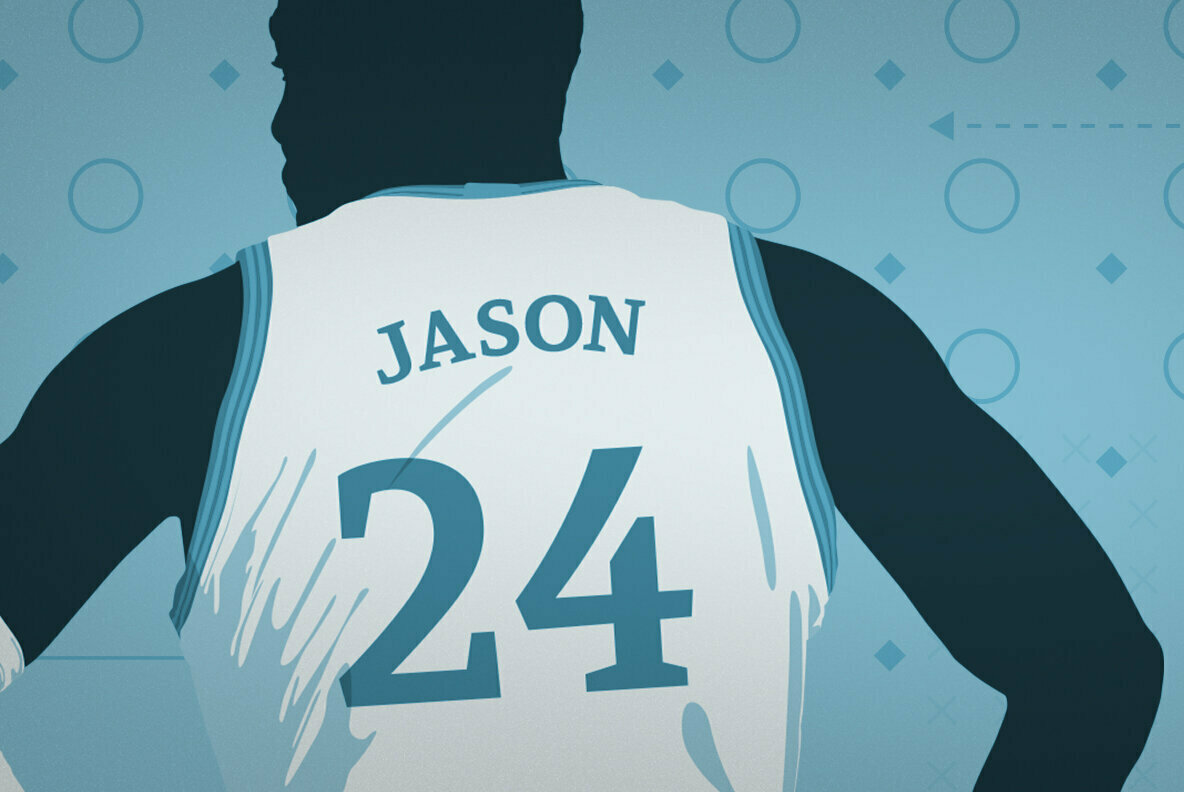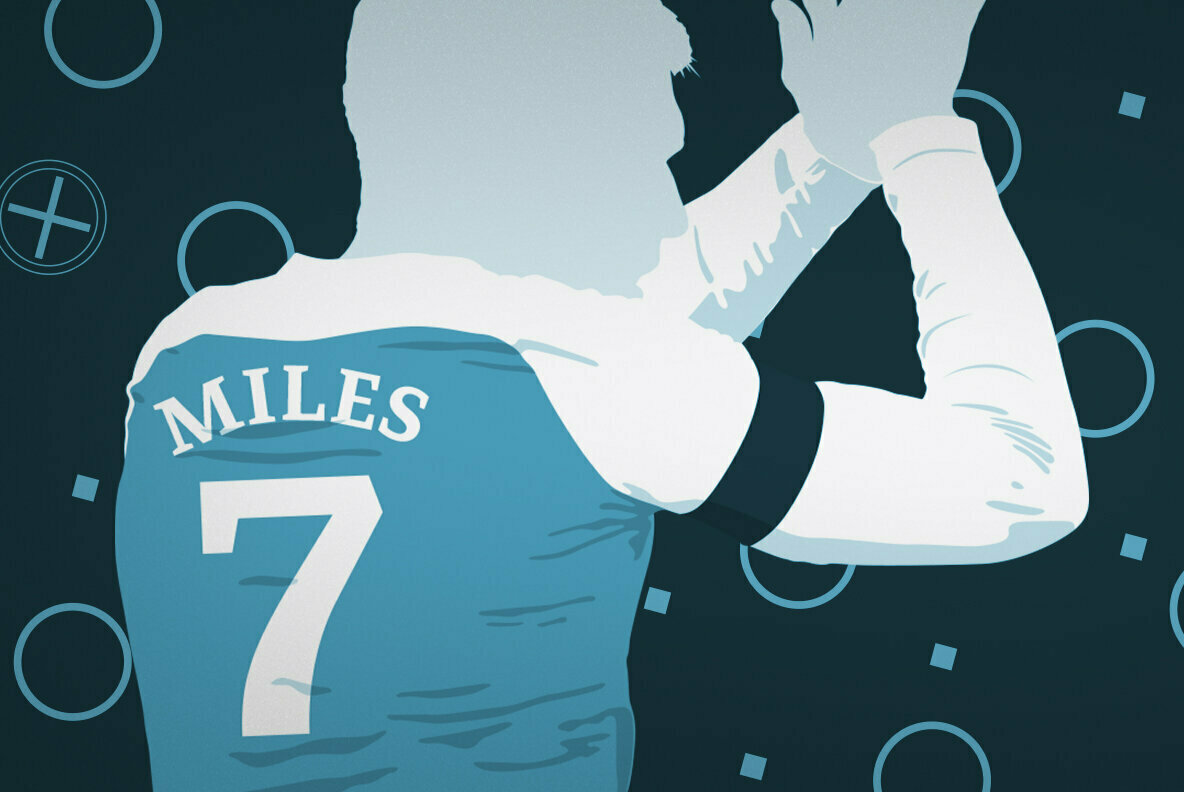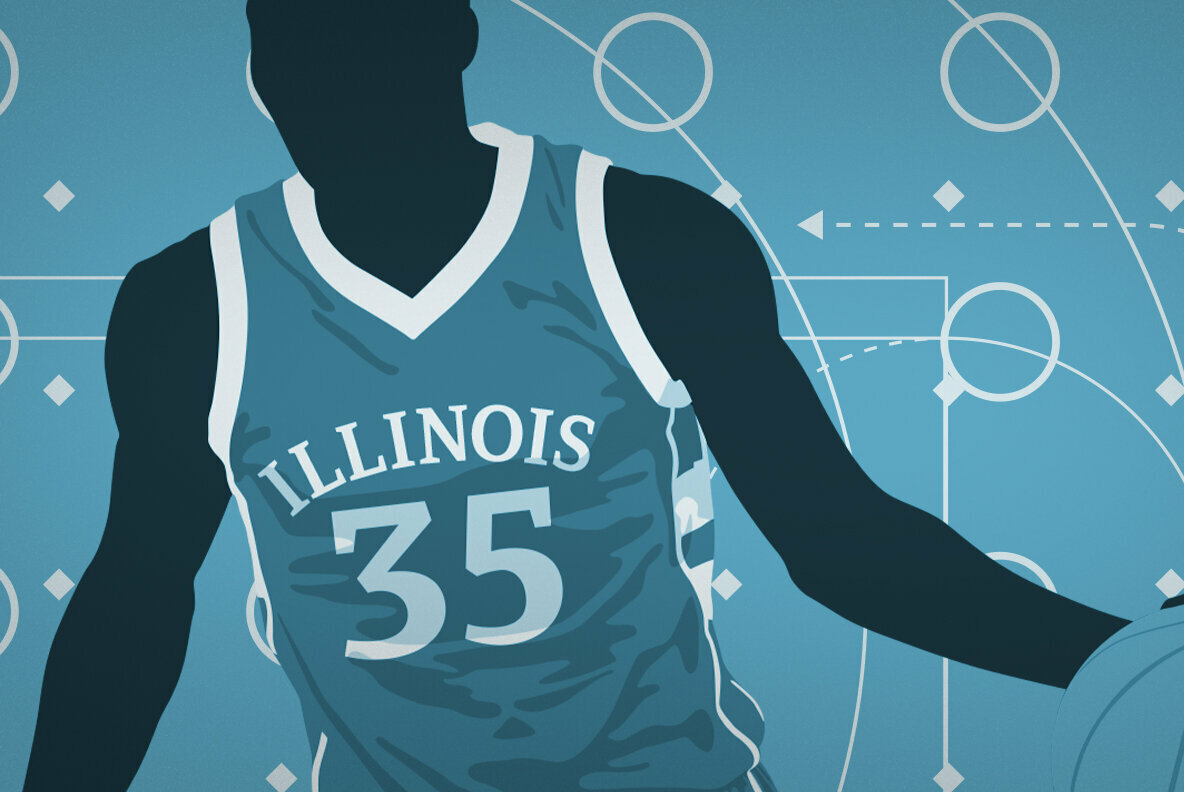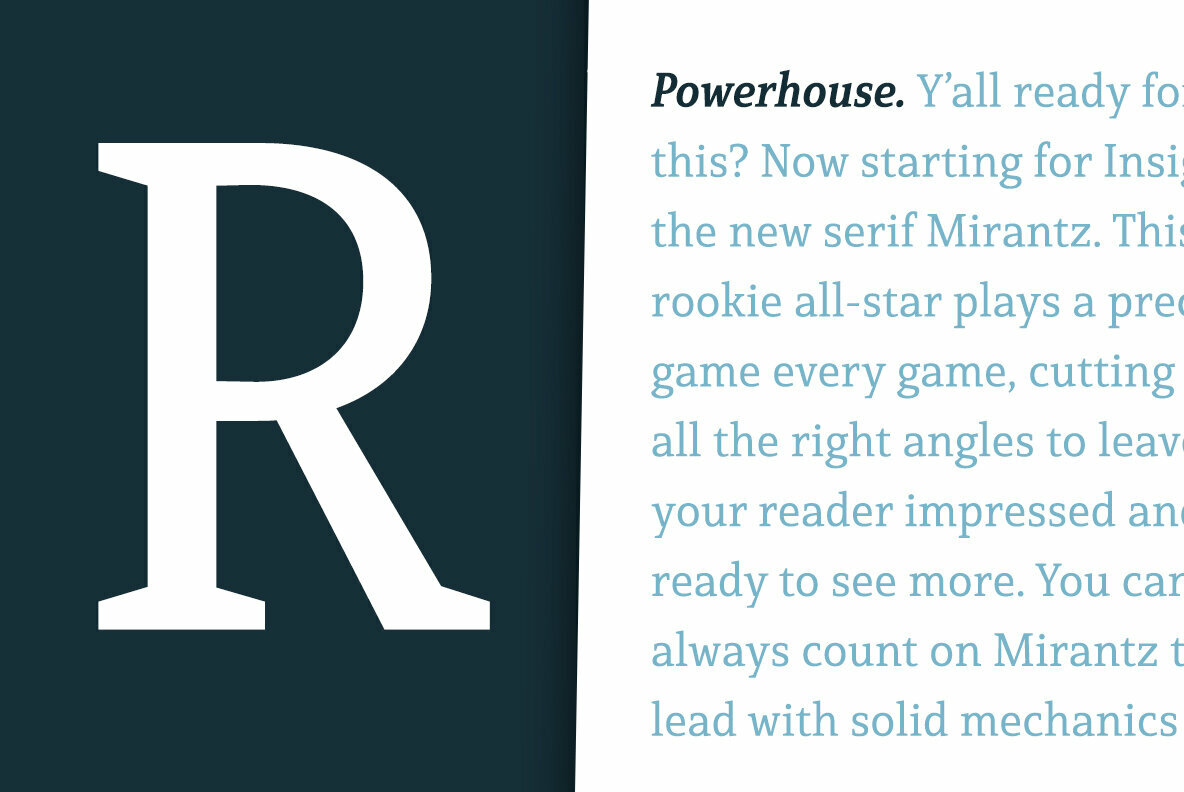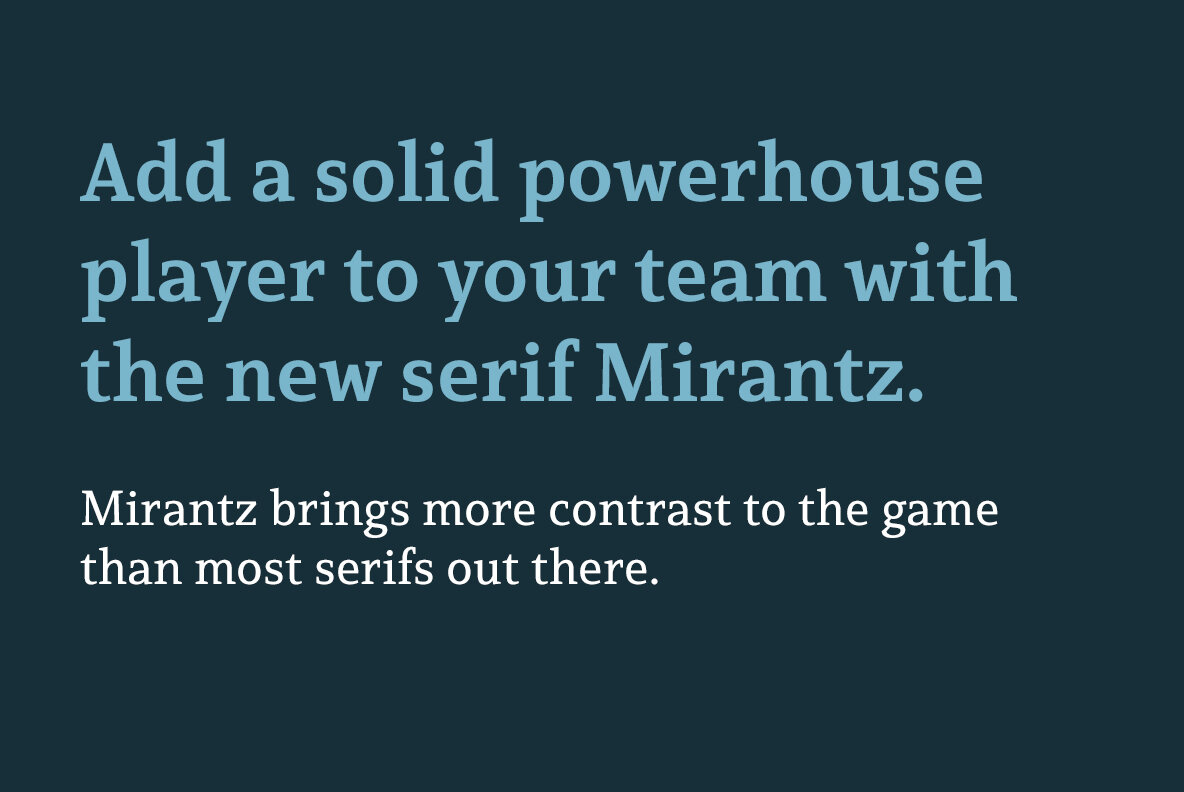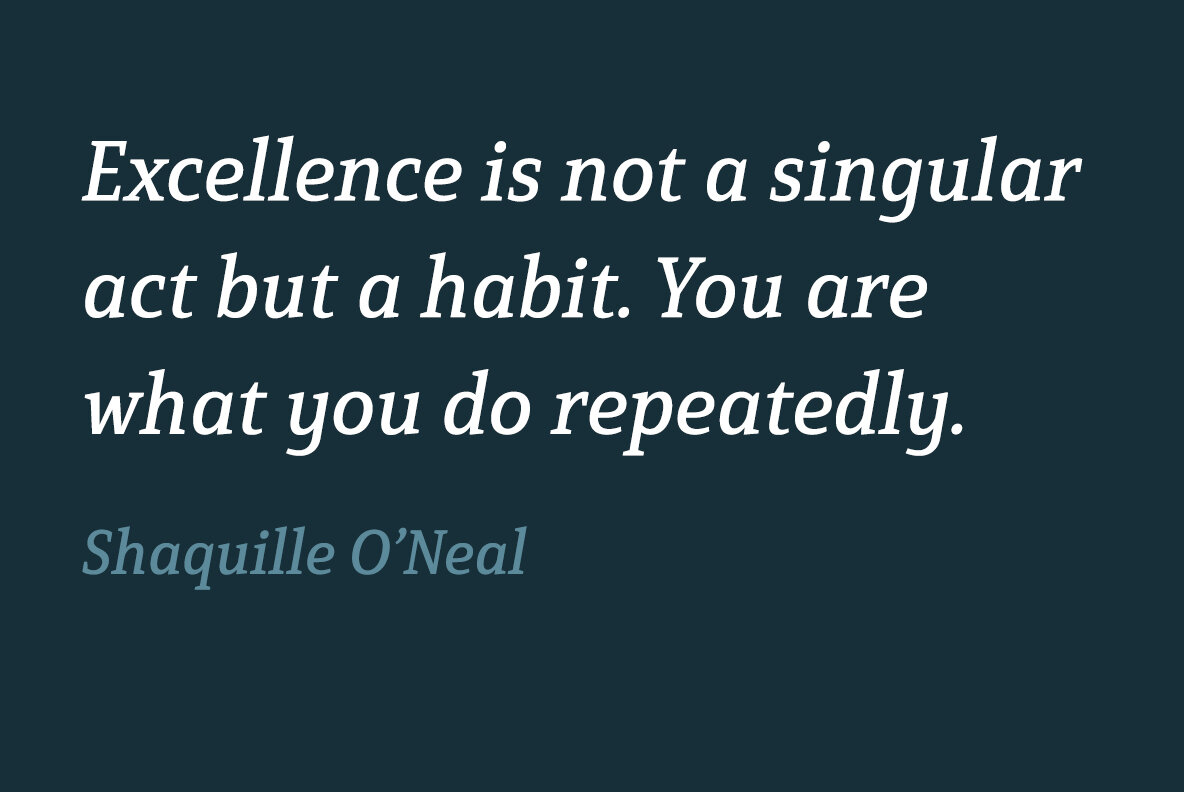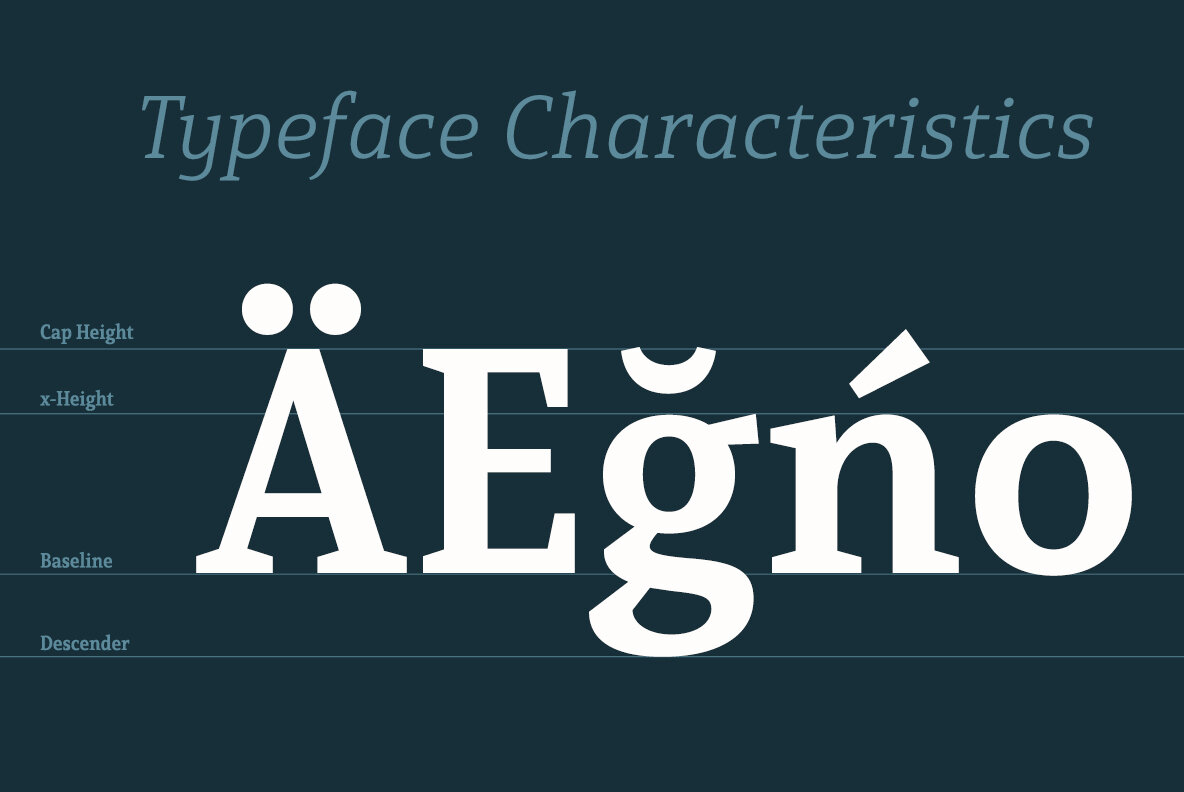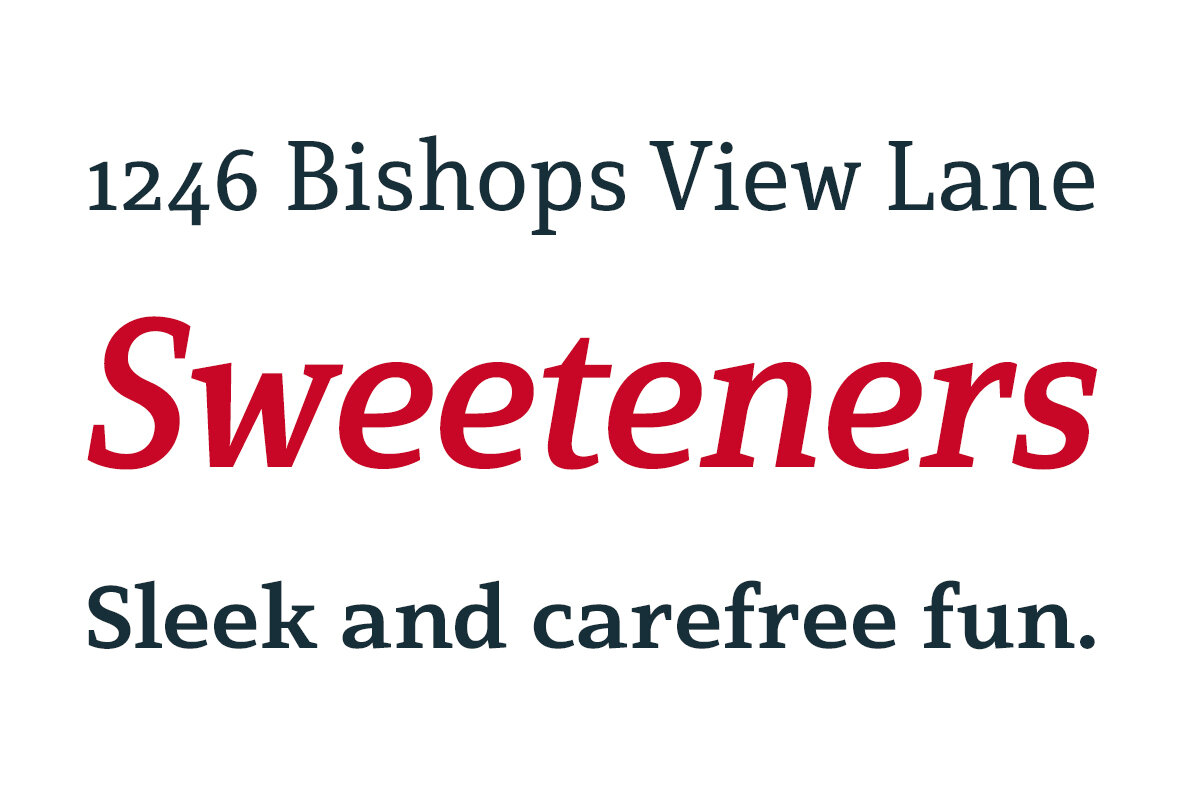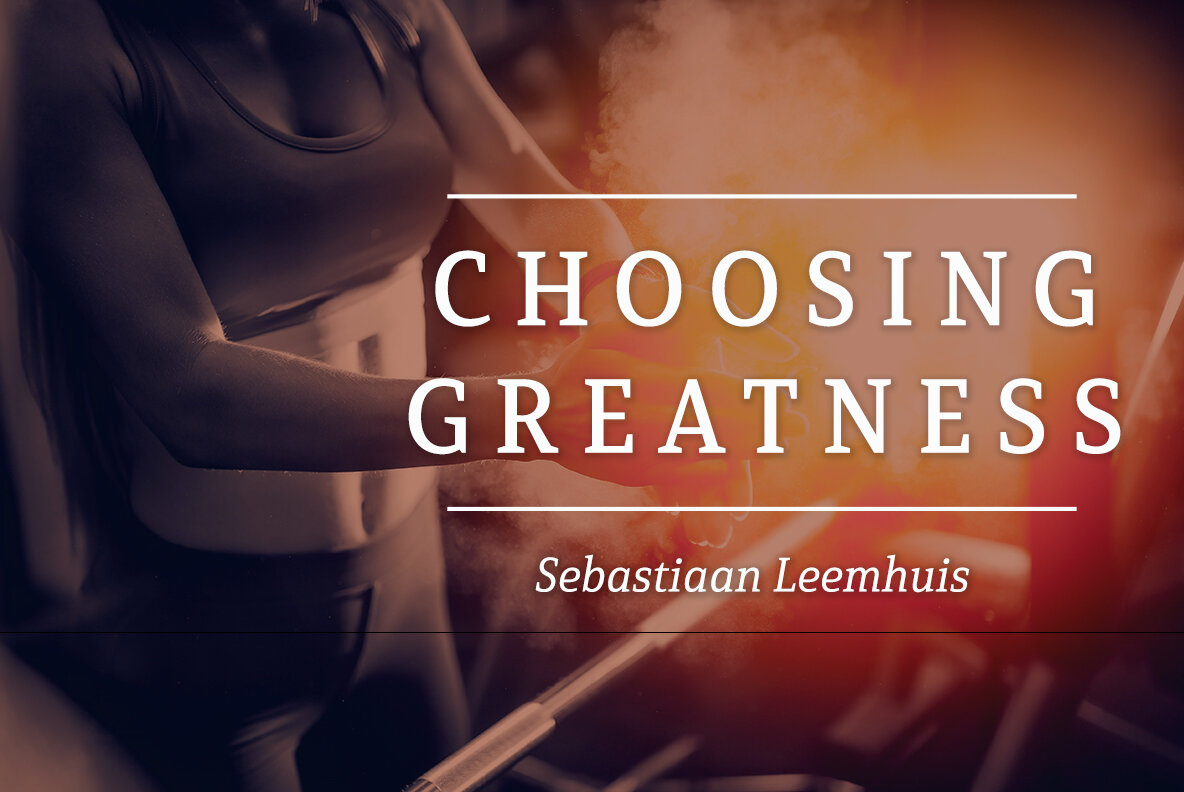
Mirantz Font
It you haven’t set your draft picks for this next round of projects, think hard before passing up Mirantz. A capable serif like this one is a guaranteed asset to any team of fonts.